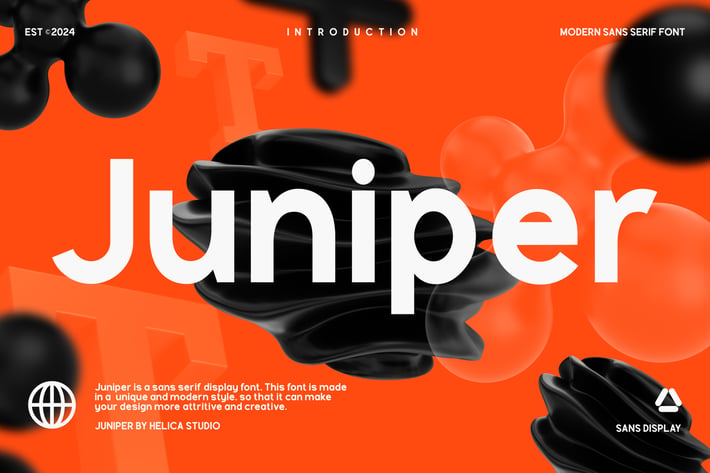
Juniper Modern Sans Display Font
Juniper Modern Sans Display Font typeface is perfect for crafting elegant quotes, stunning logos, captivating magazine headers, and so much more.
Main Features
Alternate